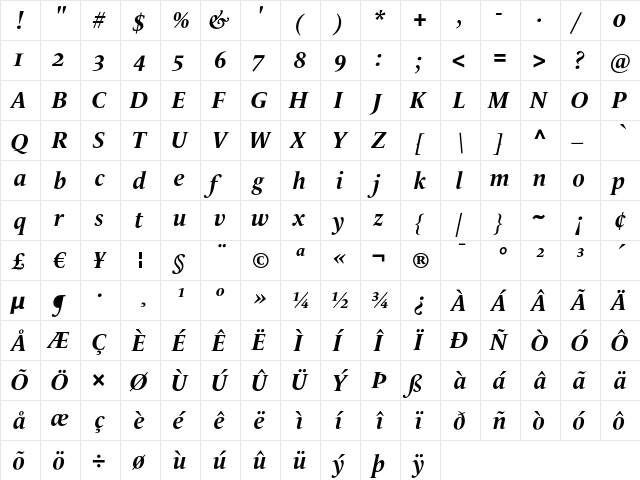
LeMondeLivre Bold Italic Oldstyle Figures
Design Context for LeMondeLivre Typeface
LeMondeLivre carries the refined structure of traditional serif typography, with bracketed terminals and considered proportions that communicate credibility and craft. The slanted form adds forward momentum and visual energy. The heavy weight commands attention and anchors typographic hierarchies.
Pro Tip: Set LeMondeLivre with slightly loose tracking in headlines to let each letterform's detail read clearly at display sizes.